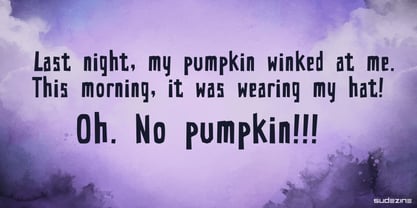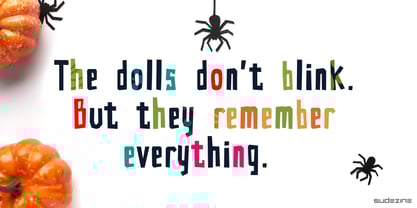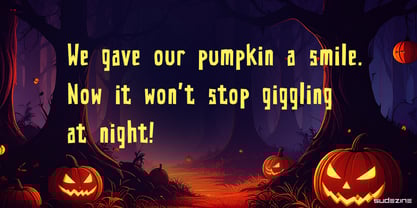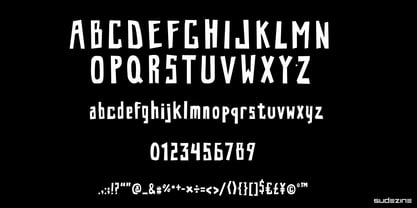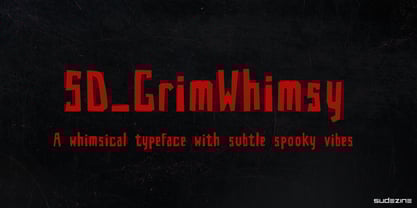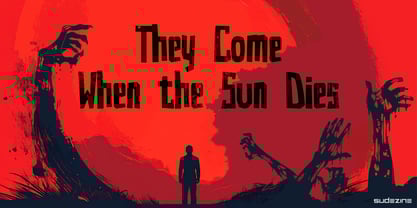
SDGrim Whimsy
by Sudezine
The SDGrim Whimsy Font Family was designed by Suhee Hwang and published by Sudezine. SDGrim Whimsy contains 1 styles.
SDGrimWhimsy – A whimsical typeface inspired by the eerie charm of horror films. Ideal for logos, quotes, invitations, greeting cards, journals, posters, apparel, and more. This font brings a playful twist to your spooky-themed designs.